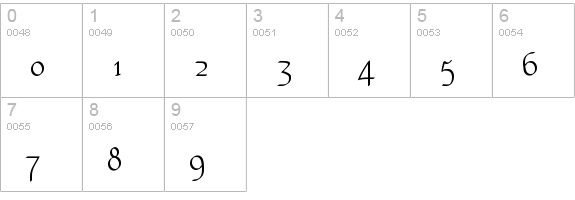
Balboat Plain font is a versatile and stylish typeface that exudes a sense of modernity and elegance. Its clean lines and simple yet sophisticated appearance make it a perfect choice for a wide range of design projects. Whether you are creating a sleek logo, designing a professional website, or crafting eye-catching marketing materials, Balboat Plain font is sure to make a bold statement. What's even better is that Balboat Plain font is completely free to download at FontsMarket.com. This means you can access this high-quality font without any cost, making it a valuable addition to your font library. Don't miss out on the opportunity to enhance your designs with the beauty and versatility of Balboat Plain font - download it today and elevate your creative projects to the next level.